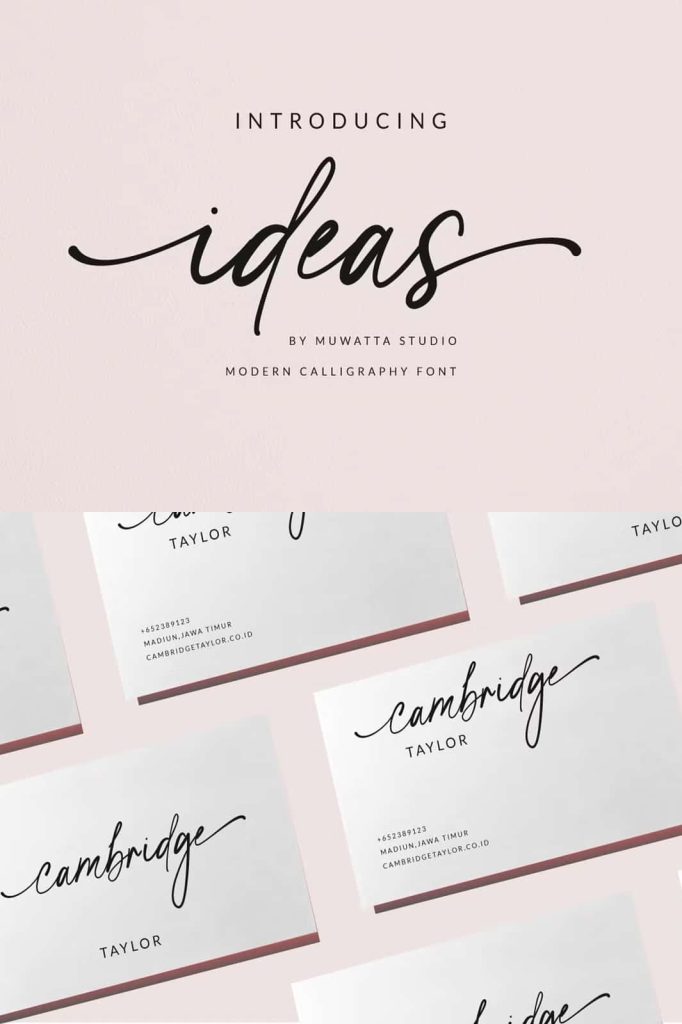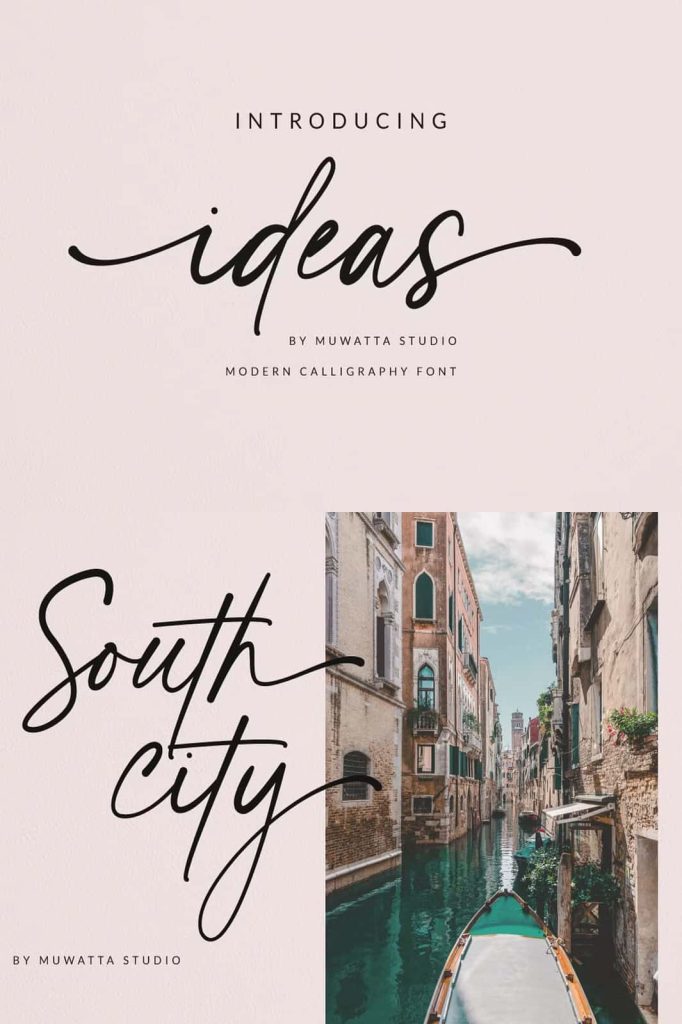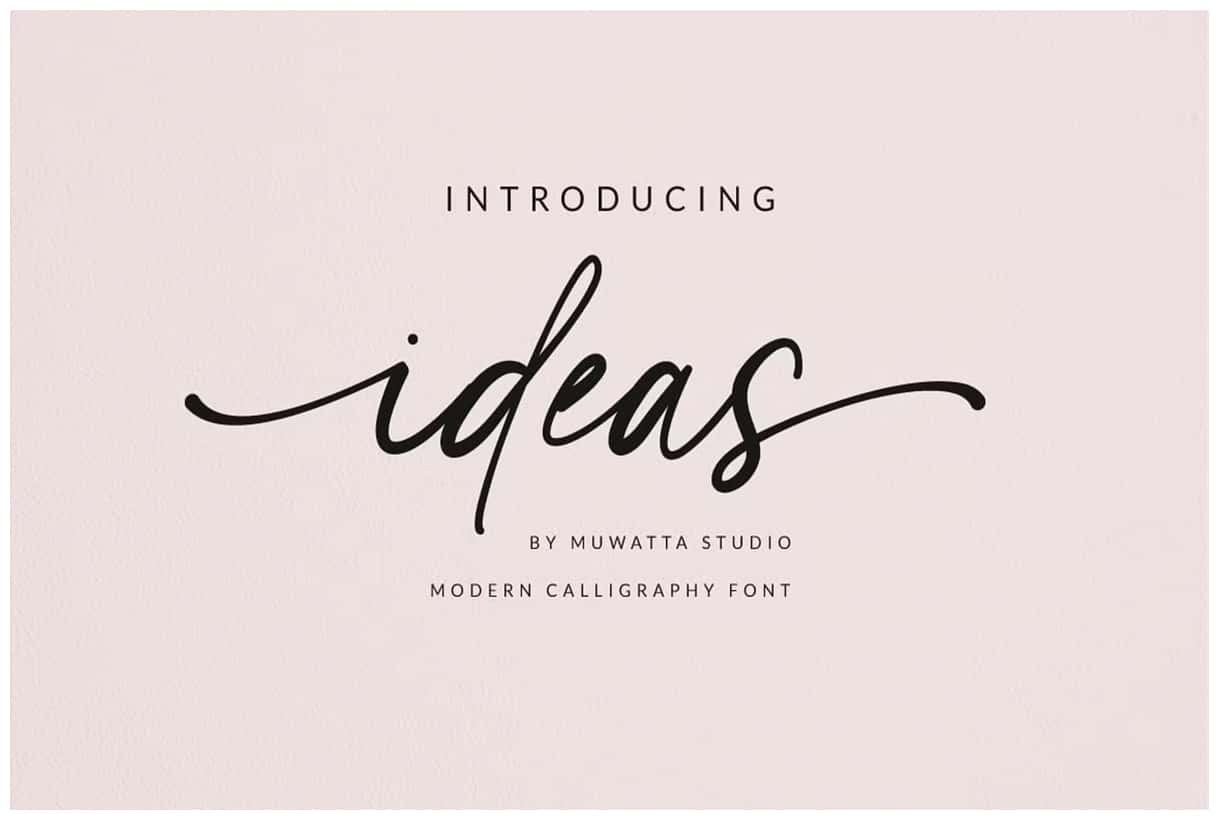
Ideas Font – A Modern Calligraphy Typeface with Timeless Sophistication
Ideas Font is a modern, elegant, and sophisticated typeface that beautifully bridges the gap between classic calligraphy and contemporary design. Created for designers who crave refinement and creativity, this exquisite font enhances every project with style and grace. Whether you’re working on wedding invitations, fashion branding, or luxury packaging, Ideas Font delivers a perfect harmony of elegance and modernity.
With its refined strokes and fluid curves, Ideas Font brings a natural rhythm and charm to your compositions. Every letter flows seamlessly into the next, creating a sense of effortless beauty and movement. This graceful style makes it ideal for projects that demand sophistication without losing the warmth and authenticity of handwritten artistry.
A Perfect Blend of Modern Style and Classic Craftsmanship
The Ideas Font was designed with a deep appreciation for traditional calligraphy and a vision for modern aesthetics. It combines the precision of digital design with the fluidity of hand-drawn lettering, resulting in a typeface that feels both contemporary and timeless. The smooth transitions and graceful curves make it a pleasure to read, while its delicate balance of thickness and contrast ensures visual harmony in every use.
This unique fusion allows the font to adapt beautifully across a wide range of creative applications. It brings a modern sensibility to traditional designs and a touch of classic elegance to modern compositions. The Ideas Font stands as a true example of typographic artistry—perfect for designers seeking sophistication, clarity, and emotional resonance in their work.
Designed for Elegance and Versatility
Every curve in Ideas Font was crafted to enhance the visual rhythm of your design. The subtle contrast between thick and thin strokes creates a refined texture that draws attention while remaining readable and balanced. This makes the font not only beautiful but also highly versatile, perfect for both display and body text applications.
Its smooth, flowing characters are designed to adapt effortlessly across various formats—from luxurious wedding invitations and fashion editorials to brand identities and social media graphics. The Ideas Font captures attention without overwhelming the design, making it the ideal choice for designers who want to make a strong, elegant impression.
Ideal Applications for Ideas Font
- Wedding Invitations: Add a touch of romance and sophistication to your wedding stationery.
- Fashion Branding: Create chic, modern logos and promotional materials with timeless appeal.
- Editorial Design: Elevate magazine titles, quotes, and layouts with expressive typography.
- Product Packaging: Give your brand a premium, elegant feel that attracts attention.
- Event Posters: Combine classic calligraphy elegance with modern design trends.
- Social Media Graphics: Create visually engaging posts that reflect luxury and creativity.
Each use of Ideas Font transforms ordinary designs into statements of taste and sophistication. Its expressive nature ensures that your message resonates with timeless beauty.
Typography That Inspires Creativity
Ideas Font was developed with the modern designer in mind—someone who values both aesthetic and emotion. Every curve and connection was refined to evoke inspiration and confidence. The flowing motion between letters makes every composition feel personal, as if written by hand with care and intention.
This font invites designers to experiment with balance, texture, and contrast. It’s equally at home in minimalist compositions as it is in rich, decorative designs. Whether used as a headline or accent text, Ideas Font adds a unique character that sets your design apart from the rest.
Calligraphic Beauty Meets Modern Design
The Ideas Font captures the essence of calligraphy without being overly ornate. Its lines are fluid and precise, offering the grace of handwriting with the polish of digital design. The careful attention to stroke width and curvature ensures perfect legibility while maintaining the organic flow that makes script fonts so visually engaging.
This makes Ideas Font a versatile choice for projects that demand elegance and readability. From wedding themes to luxury branding, it adapts effortlessly while retaining its unique voice. It’s a typeface designed not just to be seen but to be felt—an emotional expression of beauty and craftsmanship.
Key Features of Ideas Font
- Elegant Curves: Smooth transitions and flowing lines for a refined, sophisticated appearance.
- Modern Aesthetic: Perfect for high-end, fashion-forward, and editorial projects.
- High Legibility: Designed for clarity while preserving artistic elegance.
- Versatile Use: Suitable for print, digital, and luxury brand applications.
- Timeless Design: A balance of modern minimalism and classic calligraphy tradition.
Conclusion
Ideas Font is more than a typeface; it’s a celebration of creativity, elegance, and timeless design. By merging the beauty of traditional calligraphy with the precision of modern typography, it brings emotional warmth and refined aesthetics to every project. Ideal for weddings, fashion, and branding, this typeface elevates every word into an expression of artistry. Use Ideas Font to transform your creative ideas into works of visual poetry—where sophistication meets modern inspiration.